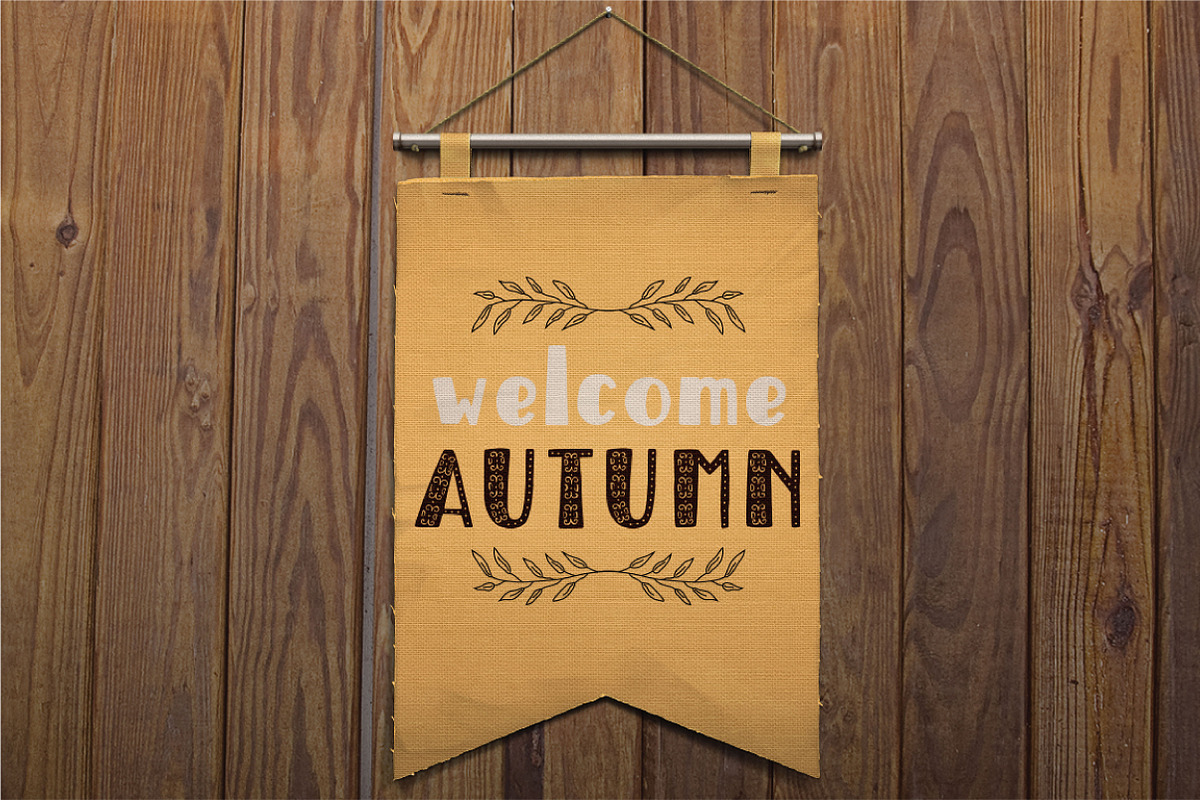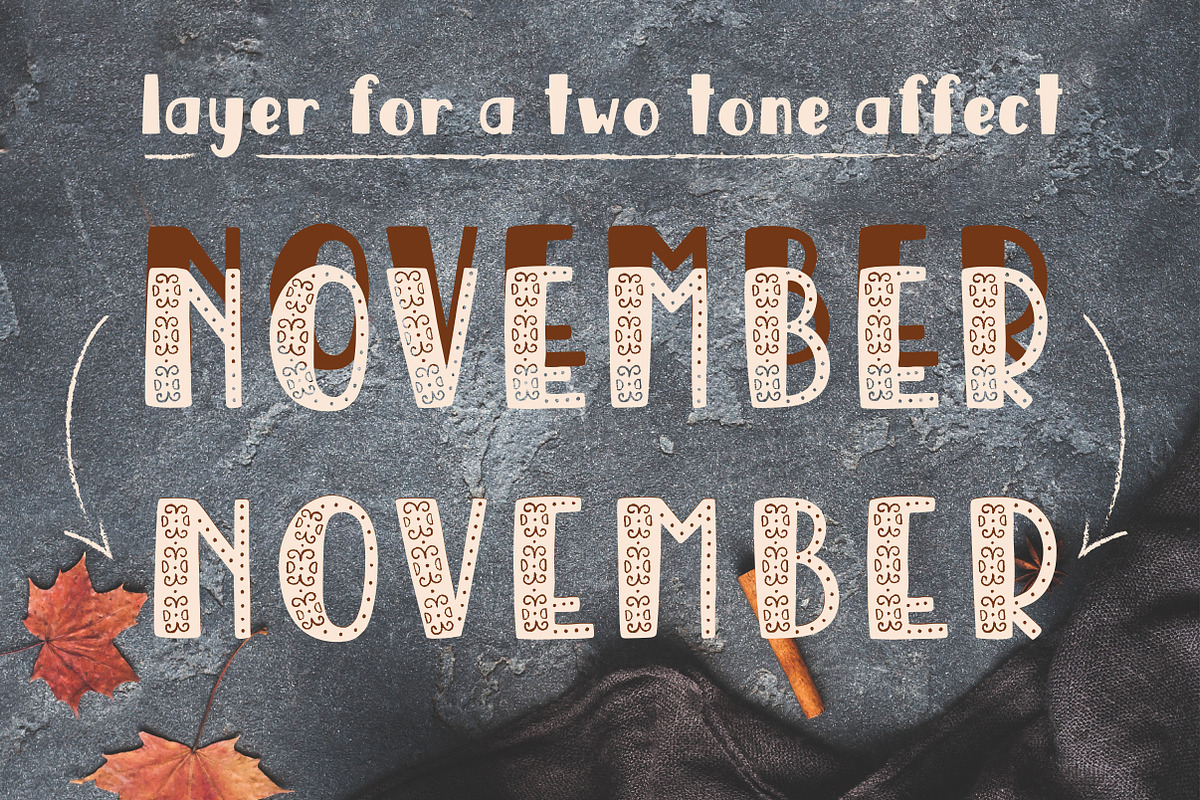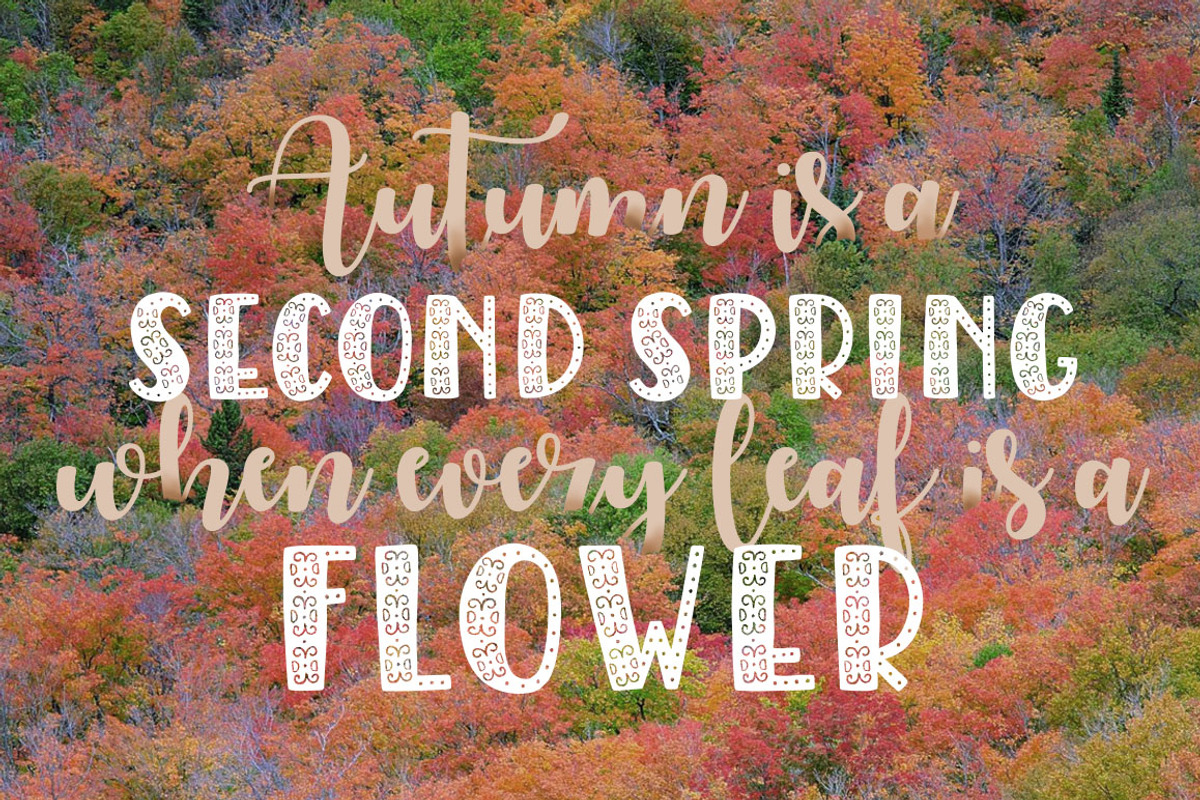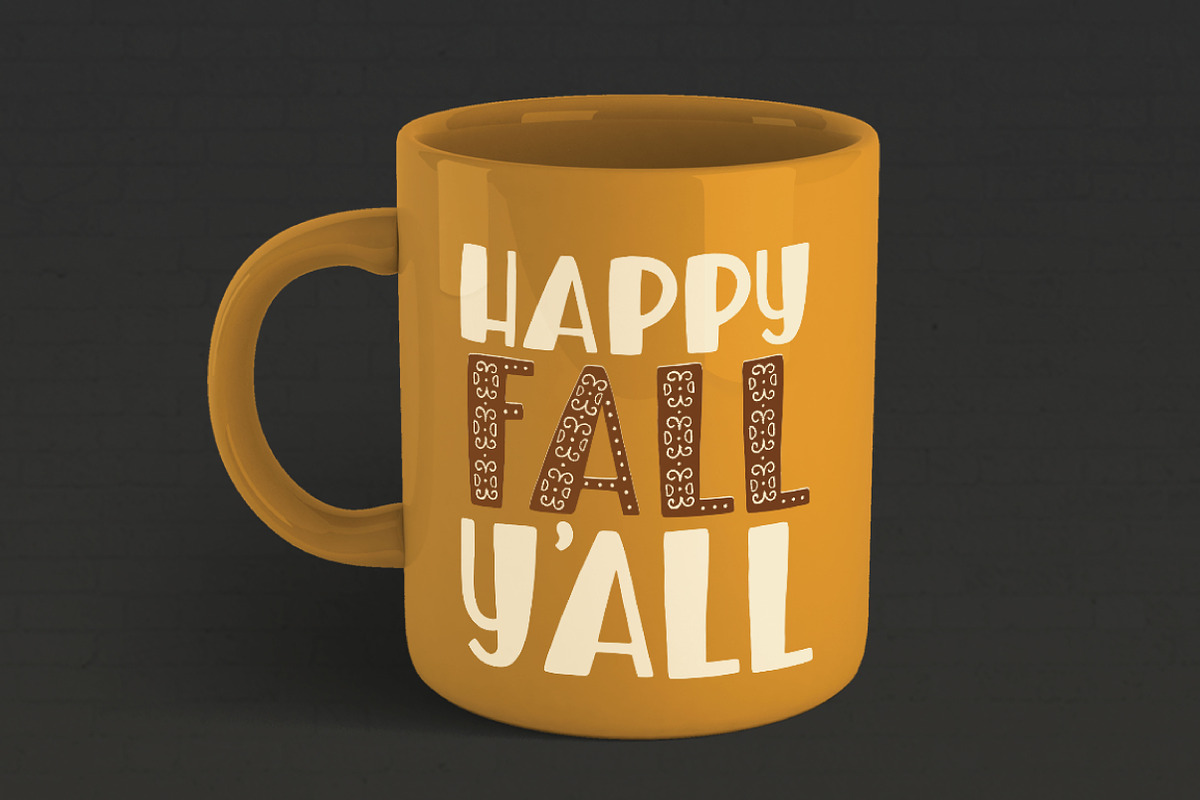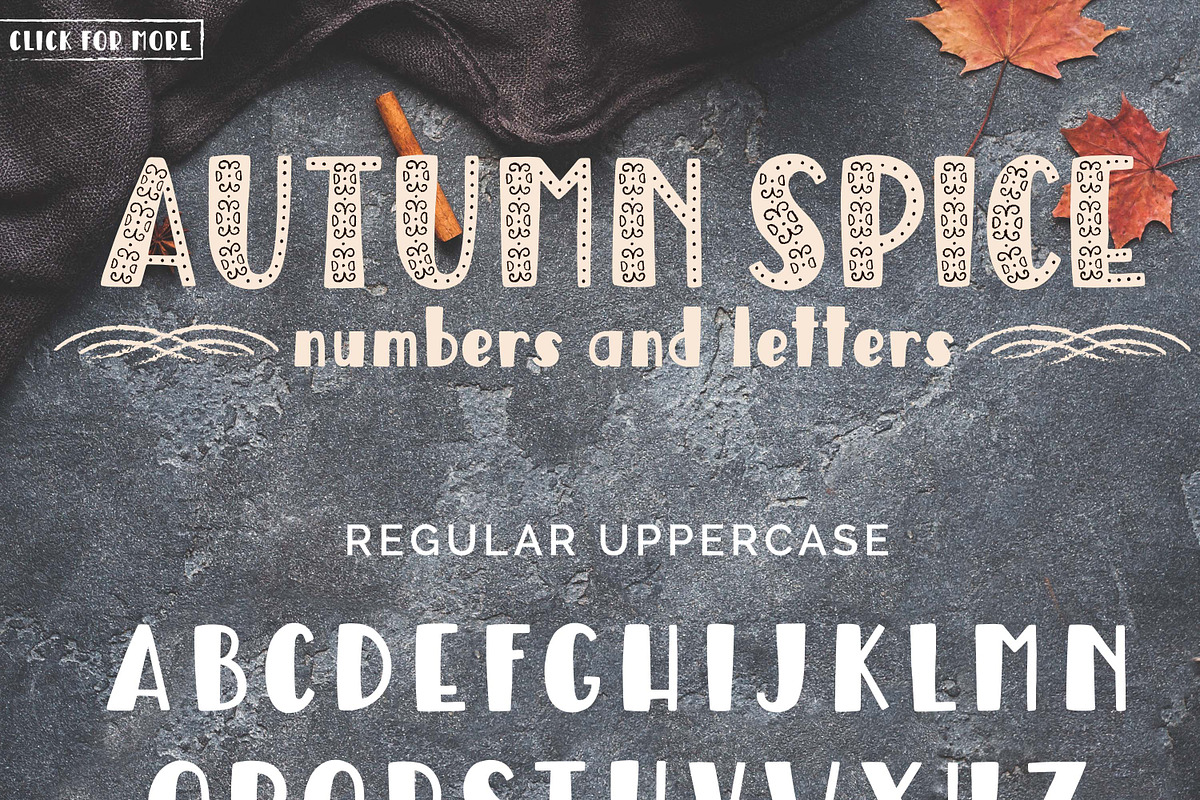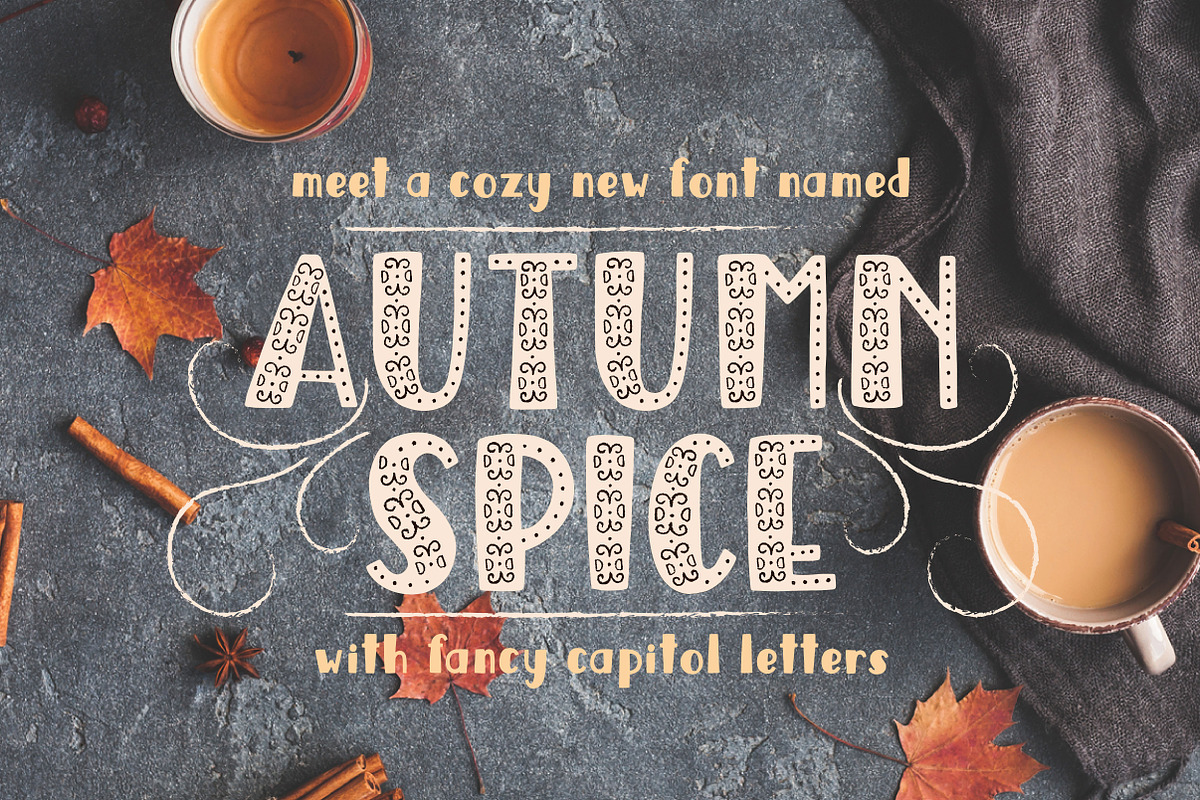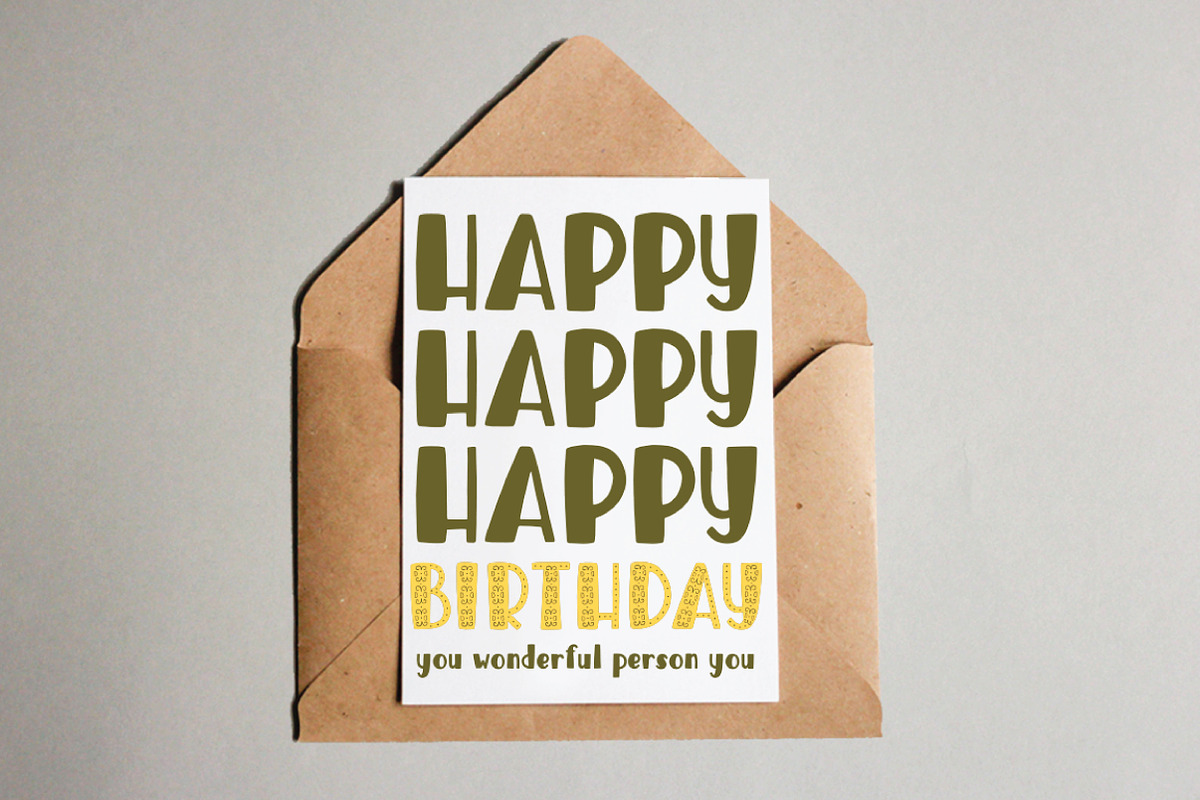
Autumn Spice Display San Serif Font
With an autumn chill in the air, reading a nice big book by the fire sounds lovely, right? Pair that with your favorite hot coco decorated with the lovely Autumn Spice Display Font and you have me sold! But this font isn't just great for all your fall styled projects. Throw a light pink on it and it's perfection for a little girls nursery or birthday celebration!
Full set of lower and upper case letters
Upper case display letters
Punctuation and numerals
Western European support
Layer the display uppercase letters over the regular uppercase letters to create lovely two tone words and phrase! You'll want to adorn every card, illustration and product with these display letters!